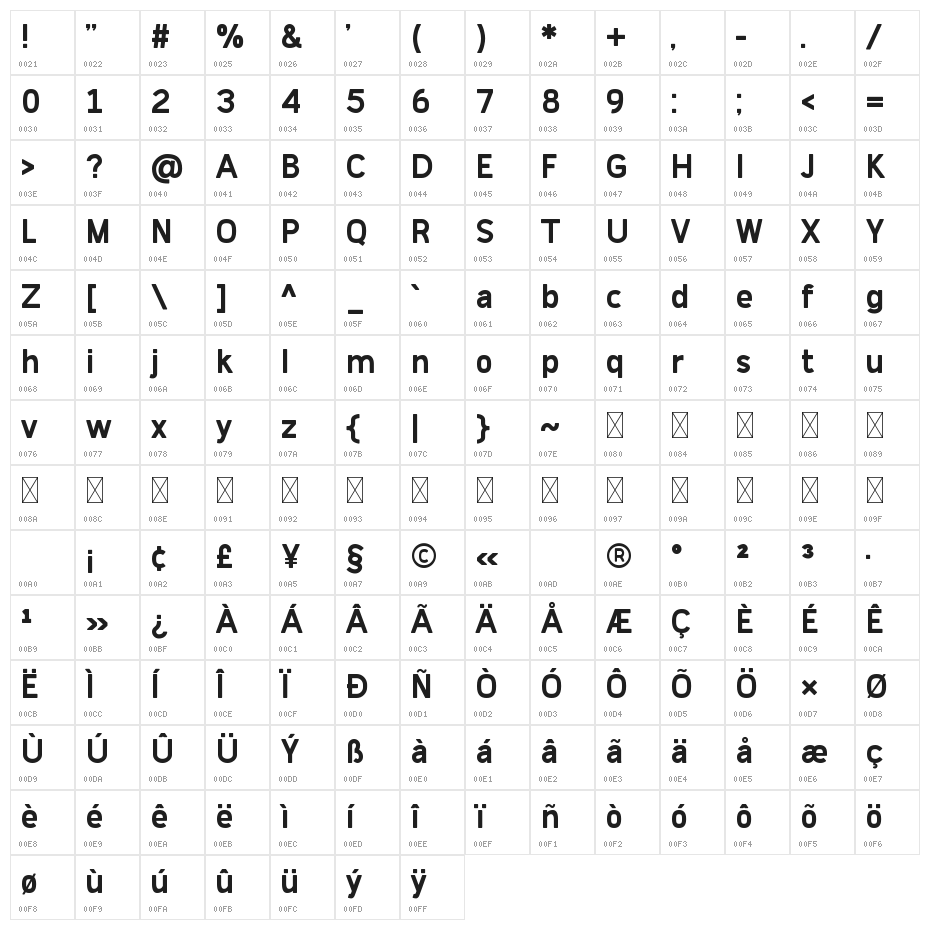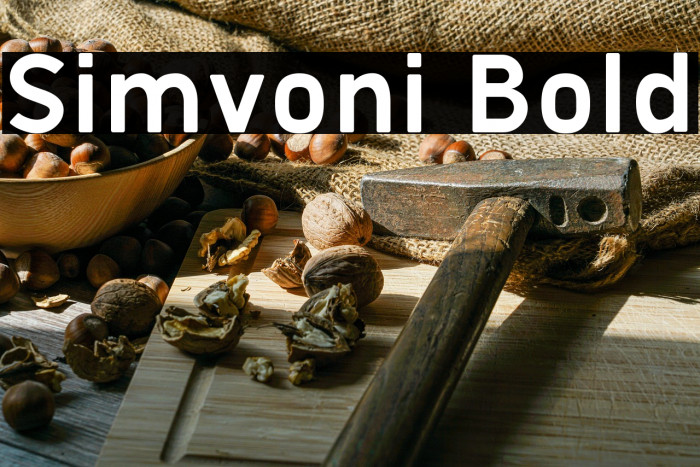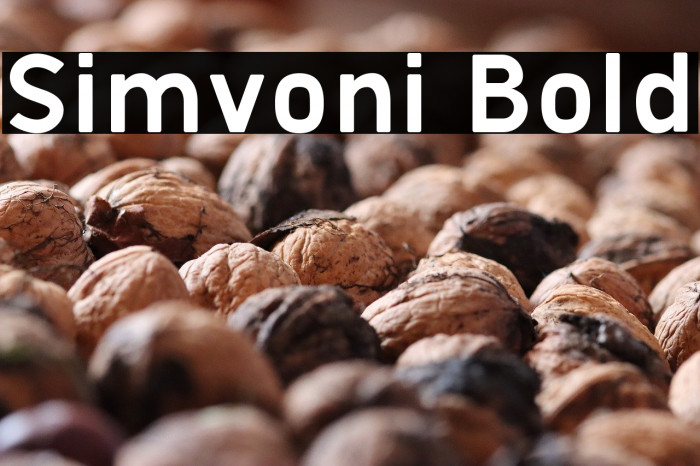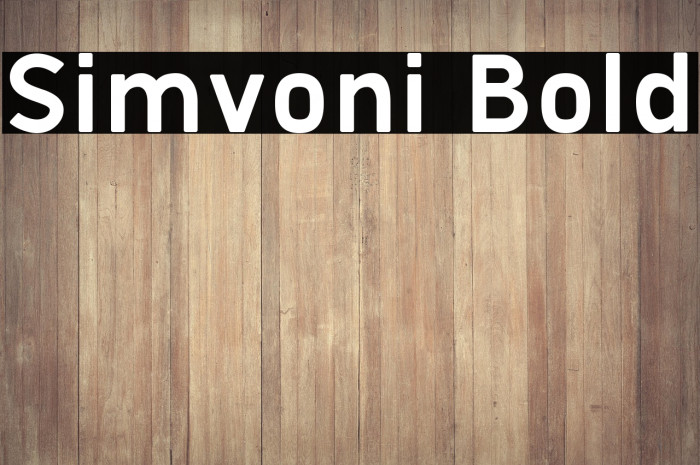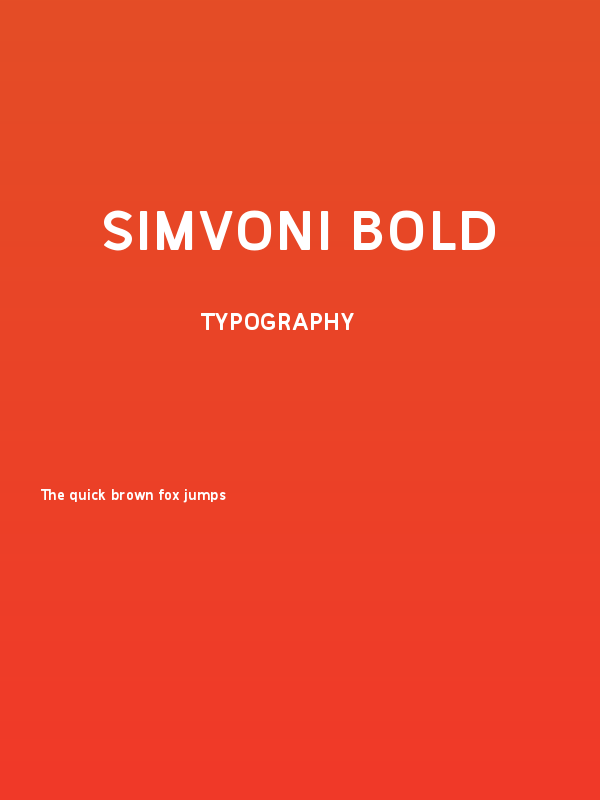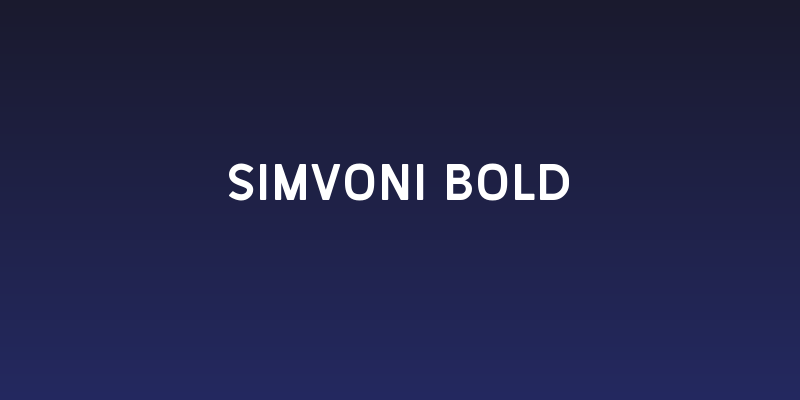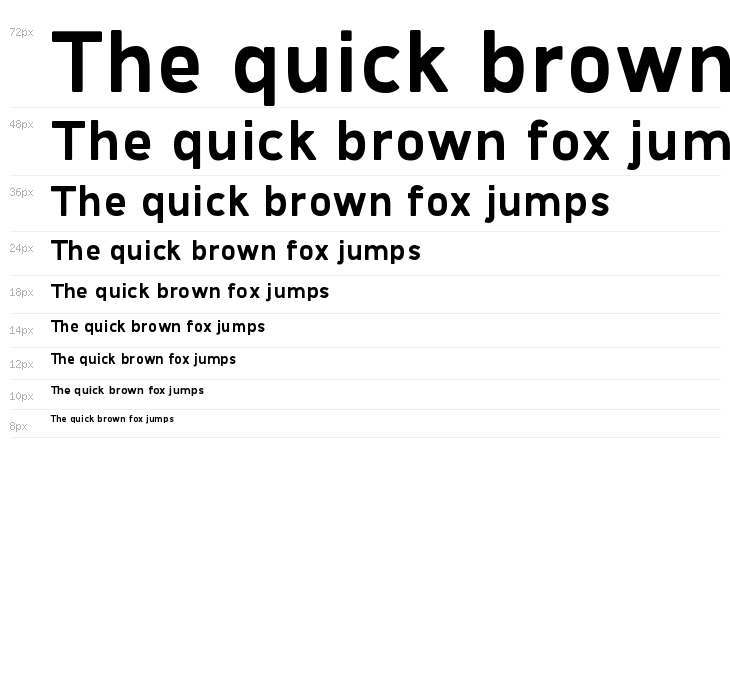
Simvoni Bold Font
Simvoni Bold Description
This font exhibits a bold and modern sans-serif style with clean lines and a strong presence. The characters are evenly spaced, providing a balanced and harmonious appearance. The uppercase letters are uniform in height, while the lowercase letters maintain a consistent x-height, contributing to readability. The numerals are clear and distinct, making them suitable for various applications. The special characters are well-defined, enhancing the font's versatility. Overall, this font is designed to convey clarity and professionalism, making it ideal for both digital and print media.
| Use Case | Headlines, Logos, Digital content |
| Proposed Projects | Ideal for branding, advertising, headlines, and digital content where clarity and impact are essential. |